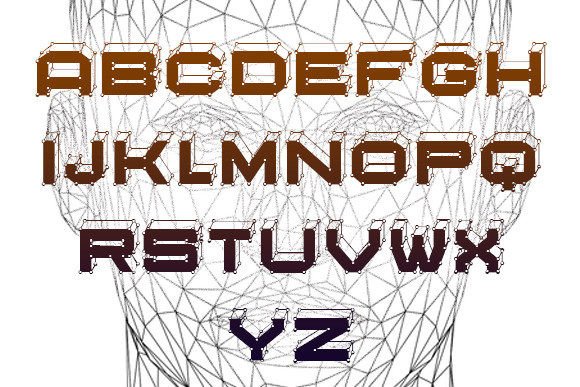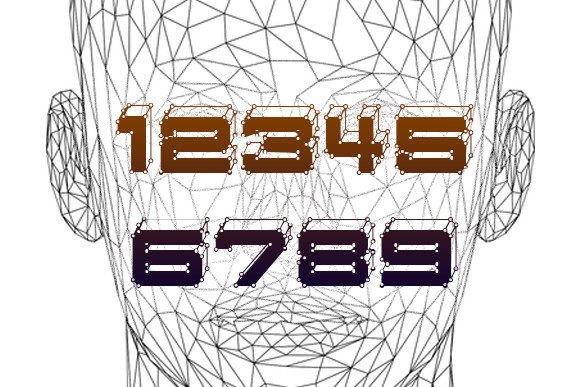
Introducing Edited Font: The Geometrical Inspiration for Your Creative Work
Are you a designer, crafter, or creative enthusiast looking for a unique and inspiring font to elevate your work? Look no further than Edited Font, a stunning geometrical font that’s perfect for a variety of projects. In this article, we’ll dive into the features and benefits of Edited Font, and explore how you can use it to take your designs to the next level.
What is Edited Font?
Edited Font is a modern, geometrical font that’s designed to inspire creativity and add a touch of sophistication to your work. With its clean lines, precise shapes, and carefully crafted letterforms, Edited Font is the perfect choice for designers, crafters, and anyone looking to add a professional touch to their projects.
Key Features of Edited Font
- Geometrical design: Edited Font features a unique geometrical design that’s both modern and stylish.
- Clean and precise: The font’s clean lines and precise shapes make it perfect for use on a variety of materials, from t-shirts to banners and headlines.
- Highly versatile: Edited Font can be used for a wide range of projects, from branding and advertising to packaging and more.
- Easily readable: Despite its geometrical design, Edited Font is highly readable, even at small sizes.
Using Edited Font in Your Designs
Edited Font is incredibly versatile, and can be used in a variety of ways to add a touch of style and sophistication to your work. Here are just a few ideas to get you started:
T-Shirts and Apparel
Edited Font is perfect for use on t-shirts, hoodies, and other apparel. Its bold, geometrical design makes it highly visible, even from a distance. Try pairing Edited Font with a bold color or graphic to create a statement piece that’s sure to turn heads.
Banners and Signage
Edited Font is also great for use on banners, posters, and other signage. Its clean lines and precise shapes make it easy to read, even from a distance. Try using Edited Font to create eye-catching banners for events, sales, or promotions.
Headlines and Titles
Edited Font is perfect for use in headlines and titles, where its bold, geometrical design can really make an impact. Try using Edited Font to add a touch of style and sophistication to your blog posts, articles, or social media graphics.
Tips for Getting the Most Out of Edited Font
Here are a few tips for getting the most out of Edited Font:
- Experiment with different colors: Edited Font looks great in a variety of colors, so don’t be afraid to experiment and find the perfect hue for your project.
- Pair with other fonts: Edited Font can be paired with a variety of other fonts to create a unique and interesting look. Try pairing it with a bold, sans-serif font for a striking contrast.
- Use it sparingly: While Edited Font is a beautiful font, it can be overwhelming if used too much. Try using it sparingly to add a touch of style and sophistication to your work.
Edited Font is a stunning geometrical font that’s perfect for designers, crafters, and anyone looking to add a touch of style and sophistication to their work. With its clean lines, precise shapes, and highly versatile design, Edited Font is the perfect choice for a wide range of projects. Whether you’re looking to create eye-catching t-shirts, banners, or headlines, Edited Font is sure to inspire your creativity and take your designs to the next level.